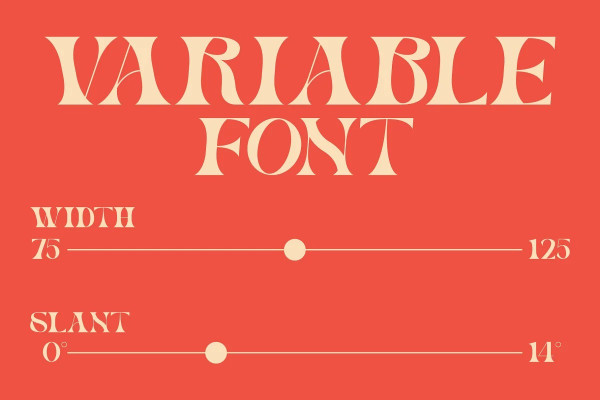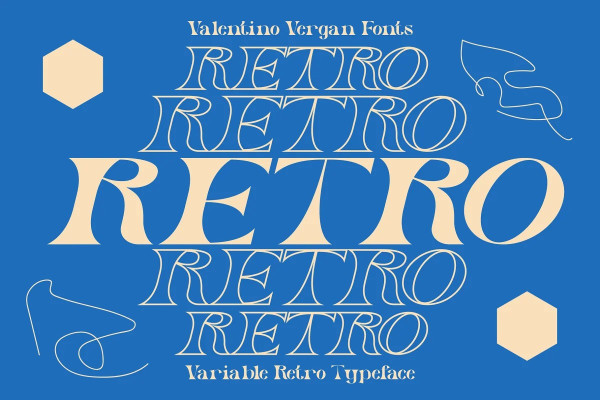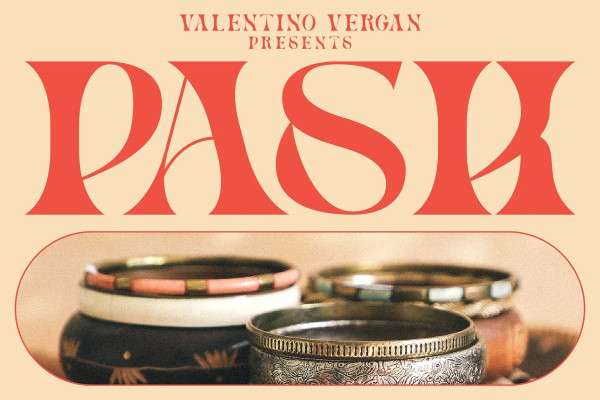
Pask Vintage Font
Pask Vintage Font, is a retro inspired variable font family. Pask has a high-contrast and a thin hairline, this gives the typeface a bold and retro look. Pask comes with standalone fonts and a variable version, the variable version allows you to adjust the width and slant.